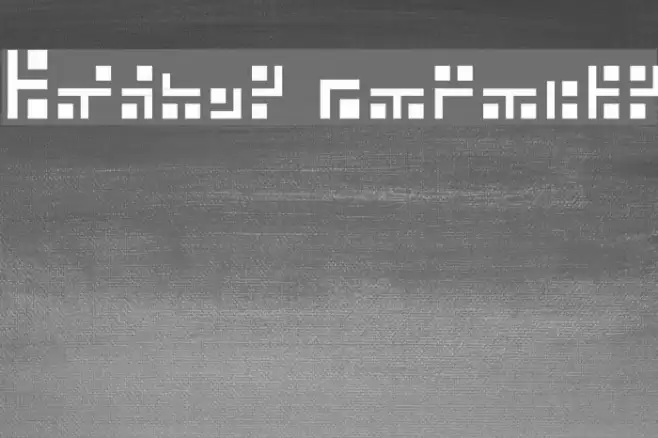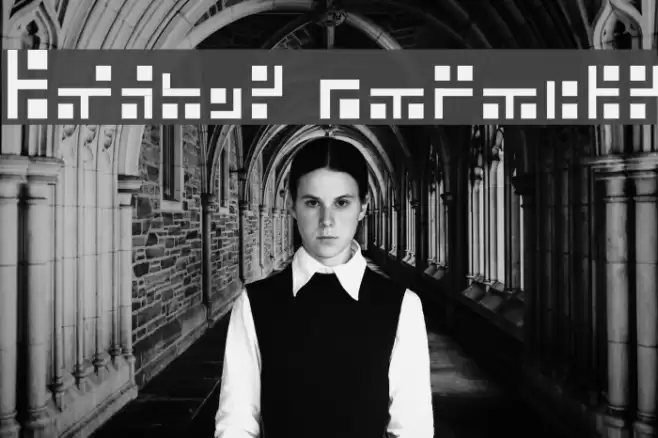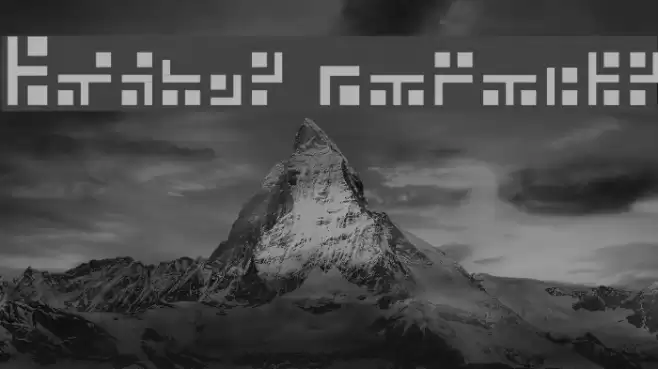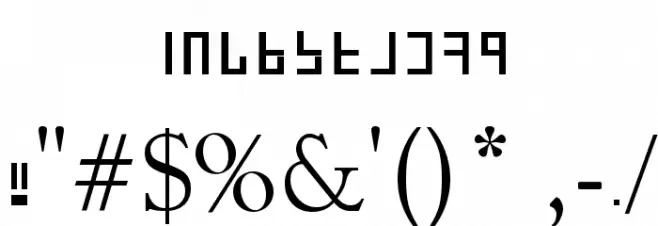
Exabic Futurec Font
Exabic Futurec Description
This font features a futuristic and geometric design, characterized by its blocky and angular shapes. The letters are composed of uniform, bold strokes with a consistent thickness, giving it a strong and impactful appearance. The characters are distinct and easily recognizable, with a modern aesthetic that suggests a digital or technological theme. The spacing between characters is tight, enhancing the compact and cohesive look of the text. This font is well-suited for projects that require a contemporary and innovative feel, such as tech branding, digital interfaces, or sci-fi themed designs.
A futuristic, geometric font with bold, angular shapes and tight spacing from Futuristic fonts.
- Proposed Projects: Ideal for tech branding, digital interfaces, sci-fi themes, and modern graphic designs.
- Character Spacing: Tight
- Use Case: Logos, Headlines, Digital interfaces